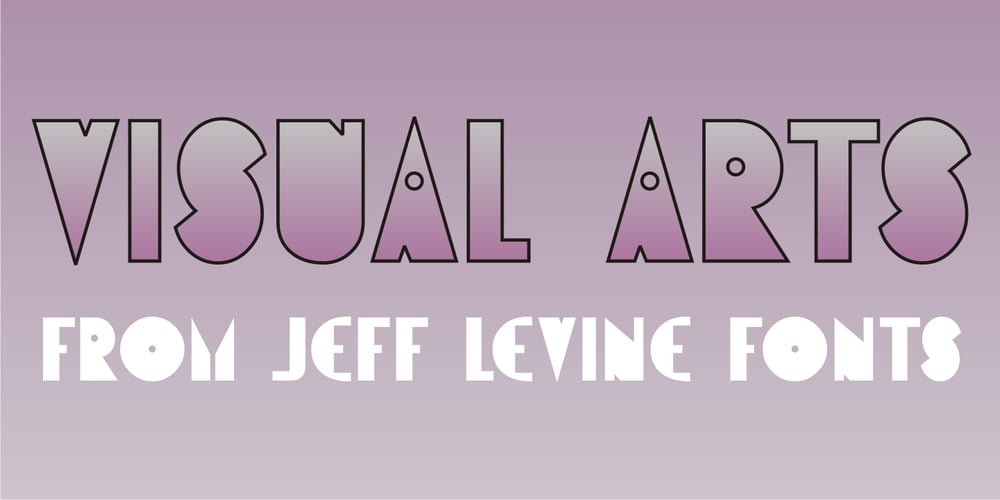
Visual Arts JNL Font Family was designed by published by Jeff Levine. Visual Arts JNL contains 1 styles and family package options. Visual Arts JNL is a classic Art Deco typeface based on the hand lettering found on a 1930s-era WPA (Works Progress Administration) poster for Women Artists. The exhibit took place in the Federal Art Gallery in Boston, and was part of the arts project underwritten by the WPA to keep many creative people working during the Depression years.